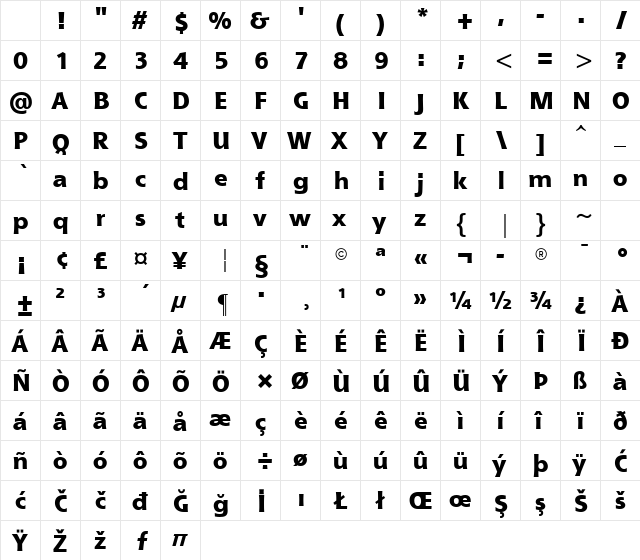
Complete Shannon Extra Bold ATT Regular glyph index. Displaying only characters natively supported by Shannon Extra Bold ATT Regular font.
Shannon Extra Bold ATT is a composed and adaptable typeface that performs quietly and consistently across a wide range of design contexts. Its bold stroke weight gives it real presence on the page.